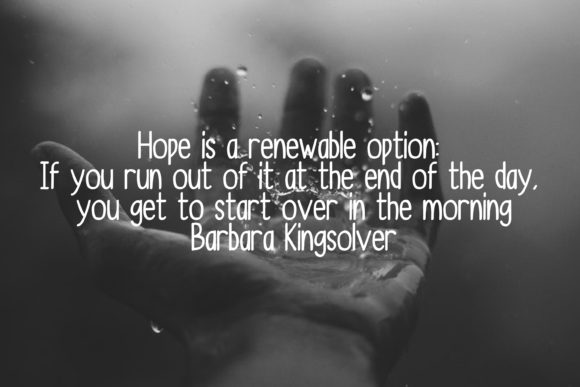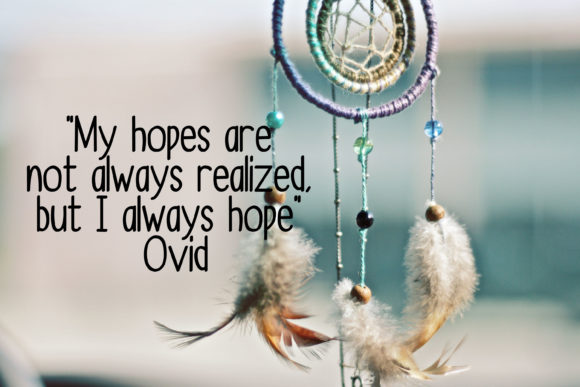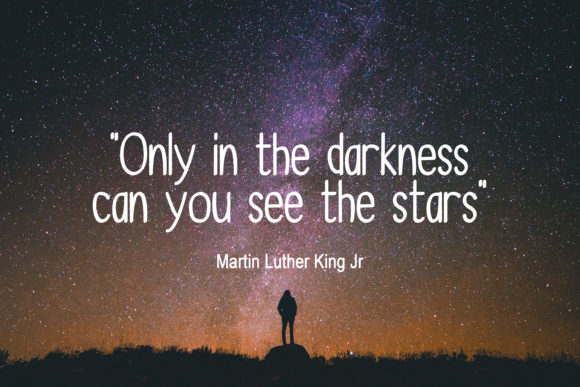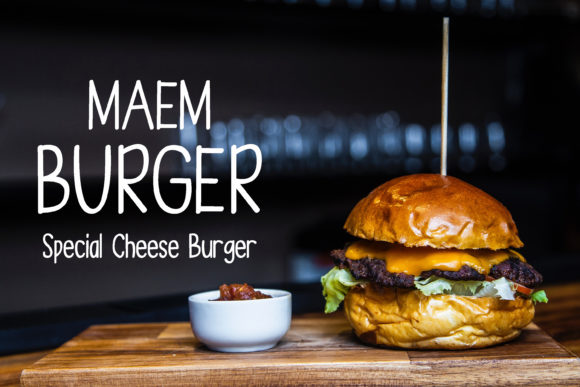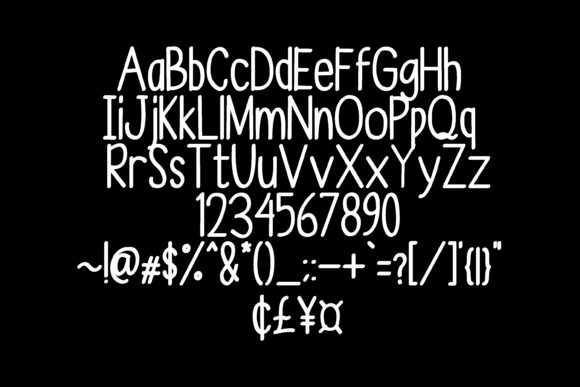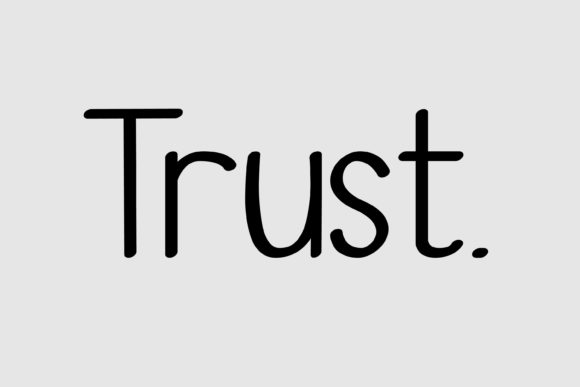
Introducing Anugrah Font: Elevate Your Designs with a Stylish Handwritten Touch
In the world of typography, fonts play a crucial role in conveying the tone and personality of a design. For designers and crafters looking to add a touch of elegance and sophistication to their work, the Anugrah Font is an excellent choice. This modern script font boasts a stylish handwritten touch, making it perfect for creating visually appealing and classy designs.
What is Anugrah Font?
The Anugrah Font is a contemporary script typeface that exudes a sense of refinement and poise. Its unique blend of modernity and elegance makes it an ideal choice for designers seeking to create stunning visual content. With its flowing lines and cursive strokes, the Anugrah Font adds a touch of warmth and personality to any design.
Key Features of Anugrah Font
- Stylish Handwritten Touch: The Anugrah Font features a stylish handwritten touch, giving it a natural and organic feel.
- Modern Script: This font is a modern script typeface, making it perfect for designs that require a contemporary look and feel.
- Classy and Elegant: The Anugrah Font is designed to add a touch of class and elegance to your designs, making it ideal for luxury brands, wedding designs, and more.
- Versatile: This font is versatile and can be used for a wide range of design projects, from branding and advertising to packaging and digital media.
Use Cases for Anugrah Font
The Anugrah Font is suitable for a variety of design projects, including:
- Branding and Identity: Use the Anugrah Font to create stunning logos, business cards, and letterheads that reflect your brand’s personality.
- Wedding and Event Design: Add a touch of elegance to your wedding invitations, programs, and other event materials with the Anugrah Font.
- Packaging Design: Use this font to create eye-catching packaging designs that stand out on store shelves.
- Digital Media: The Anugrah Font is perfect for digital media, including social media graphics, blog posts, and website headers.
Benefits of Using Anugrah Font
By incorporating the Anugrah Font into your designs, you can:
- Enhance Visual Appeal: The Anugrah Font adds a touch of elegance and sophistication to your designs, making them more visually appealing.
- Convey Personality: This font helps to convey the personality and tone of your brand, making it easier to connect with your target audience.
- Stand Out: The unique and stylish design of the Anugrah Font helps your designs stand out in a crowded market.
Tips for Using Anugrah Font
To get the most out of the Anugrah Font, follow these tips:
- Pair with Simple Fonts: Pair the Anugrah Font with simple fonts to create a striking contrast and add visual interest to your designs.
- Use for Headings: Use the Anugrah Font for headings and titles to add a touch of elegance and sophistication.
- Experiment with Colors: Experiment with different colors to find the perfect combination that complements your brand’s personality.
| Author | Sigty Studio |
The Anugrah Font is a stunning modern script typeface that adds a stylish handwritten touch to your designs. With its elegant and classy look, this font is perfect for designers and crafters looking to create visually appealing and sophisticated designs. By incorporating the Anugrah Font into your design projects, you can enhance visual appeal, convey personality, and stand out in a crowded market.